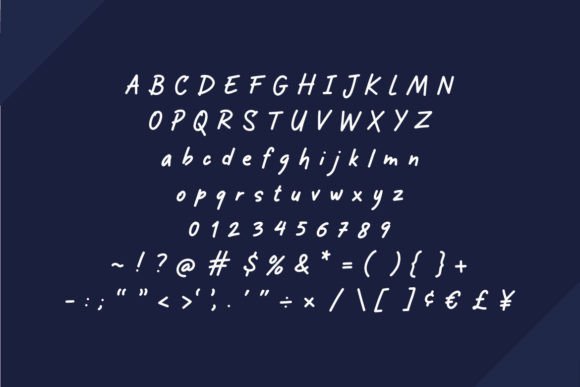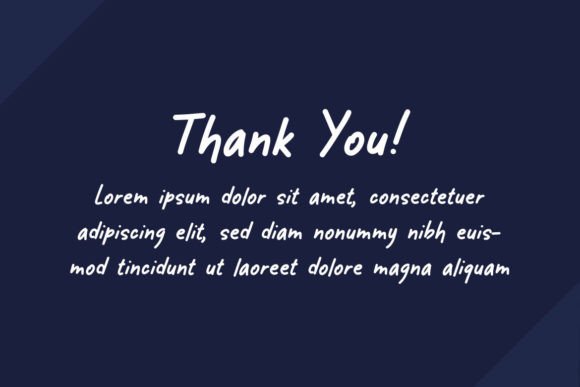
Introduction to Joshey Font
Joshey is a unique handwritten font that brings a modern ambiance to each word.
Joshey can be used in any work such as book covers, music covers, children’s books, posters, advertisements, social media content, logos, and many more .
Key Features of Joshey Font
Why Choose Joshey Font?
Joshey Font offers exceptional quality and versatility, making it a valuable addition to your design toolkit. Whether you’re creating for personal projects or commercial use, Joshey Font delivers professional results.